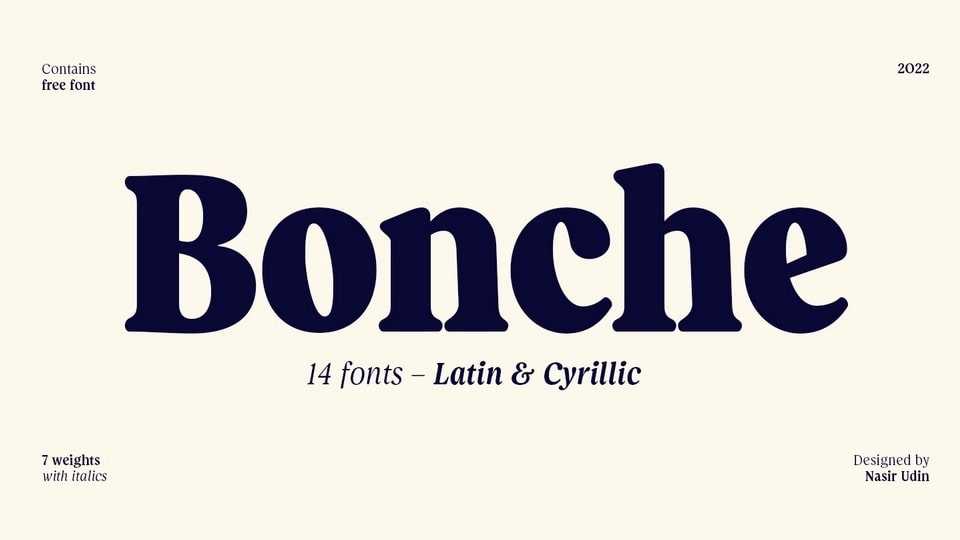
Download Bonche font, a soft-serif type family inspired by the eccentricity of early 20th century typefaces. Bonche has a bit funky looks but not that fancy, it has a neutral appearance yet not so boring.
Designer: Nasir Udin